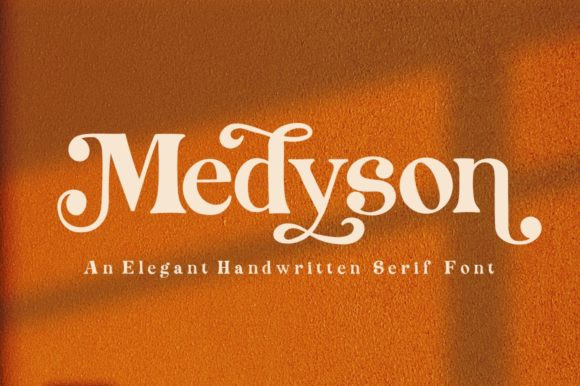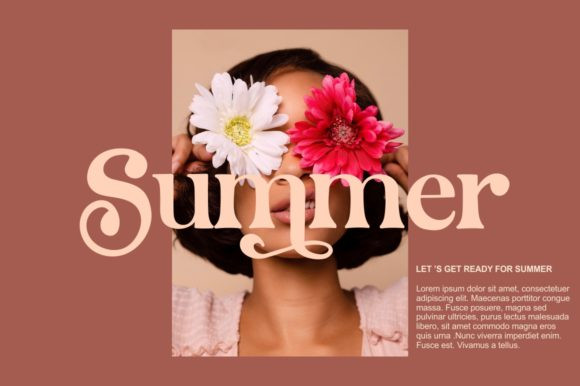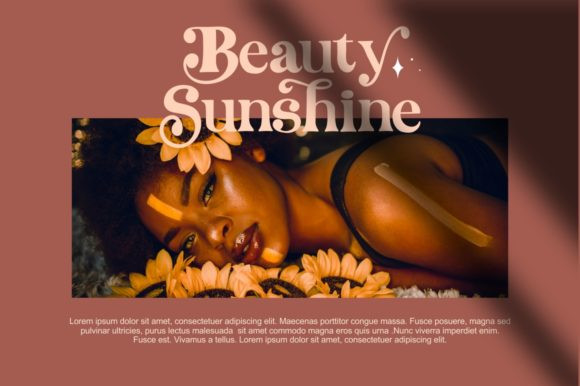
Medyson Font
Medyson is an elegant and bold serif font. It is defined by smooth curves and is perfect for fashion branding or editorial designs. Add it confidently to your projects, and you won’t be disappointed.